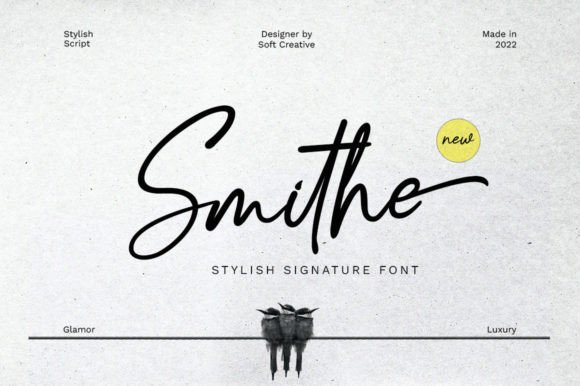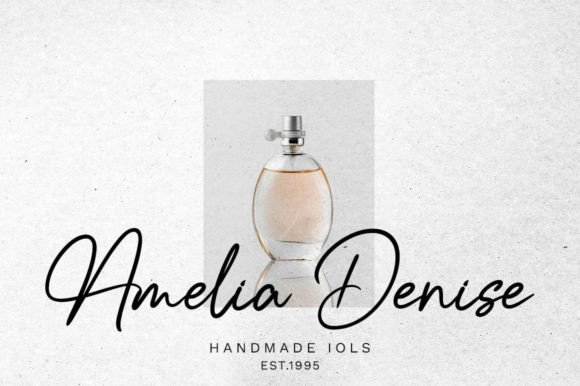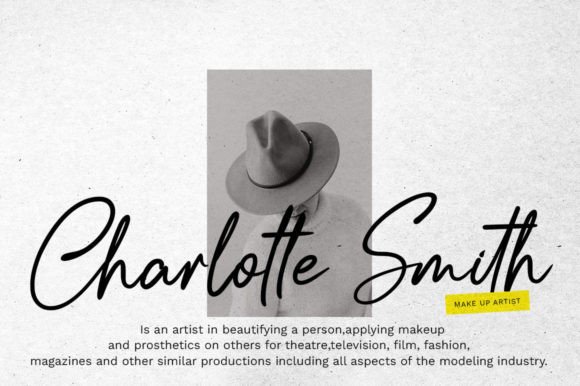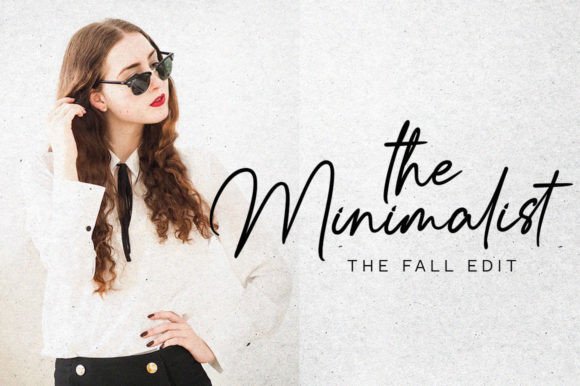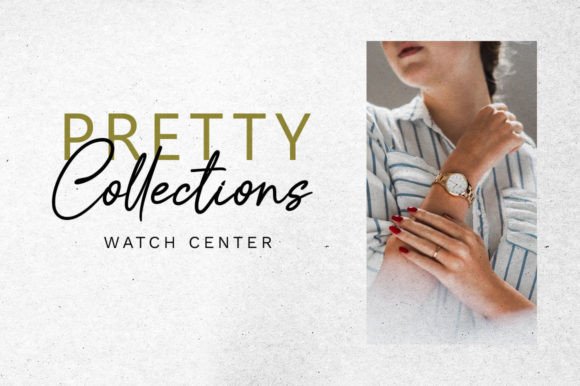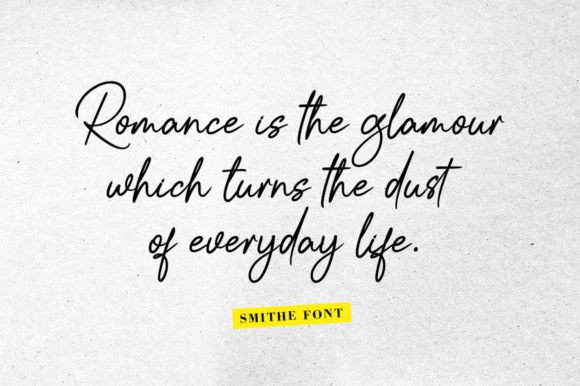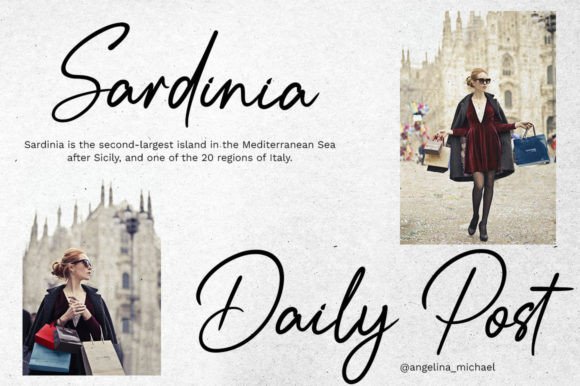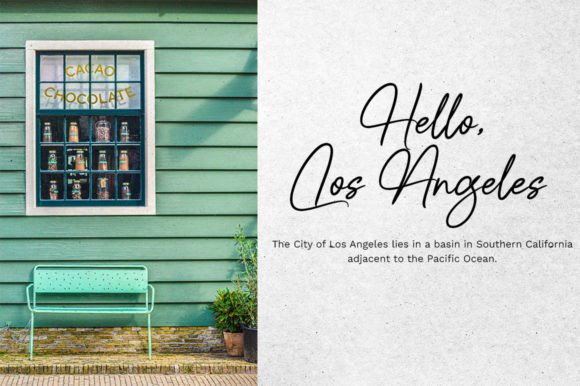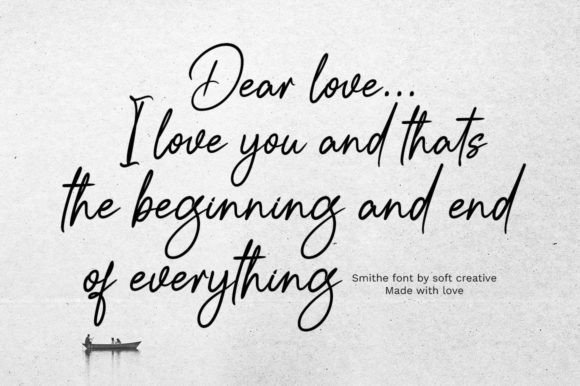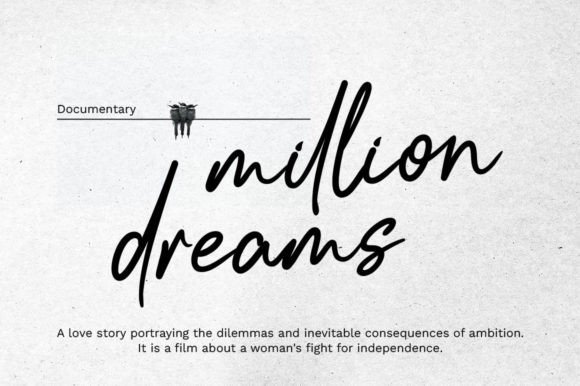
Smithe Signature Font
Introducing Smithe Signature, a classic thin handwritten font with an elegant italic style. This font is characterized by unique and modern swirls, adding an extra layer of sophistication, sweetness, and perfection to your projects.
Smithe Signature is designed to bring an air of elegance to a variety of applications. Its thin and handwritten style makes it perfect for logos, branding projects, household designs, utensils, product packaging, mugs, quotes, posters, shopping bags, t-shirts, book covers, business cards, invitation cards, greeting cards, and various other beautiful projects.
The classic thin design of Smithe Signature exudes a timeless charm, while the modern swirls give it a contemporary touch. This combination creates a font that is not only versatile but also adaptable to a range of design contexts.
Whether you’re working on a sophisticated brand identity or adding a touch of elegance to your household designs, Smithe Signature is poised to elevate your projects. Its thin lines and unique swirls contribute to a refined and aesthetic appearance, making it suitable for a diverse array of beautiful and creative endeavors.
In summary, Smithe Signature is more than just a font; it’s a design element that brings elegance and sophistication to your projects. Download Smithe Signature now and discover how its classic thin style and modern swirls can enhance the beauty of your logos, branding, and various other creative projects.